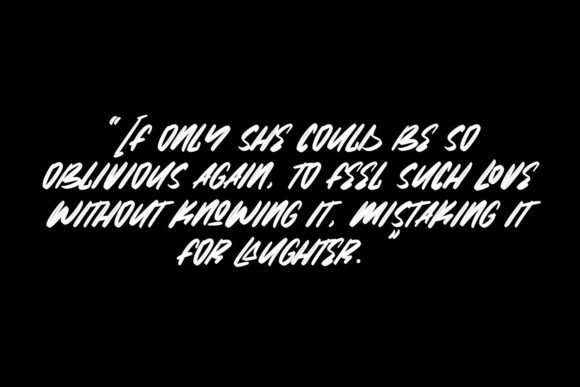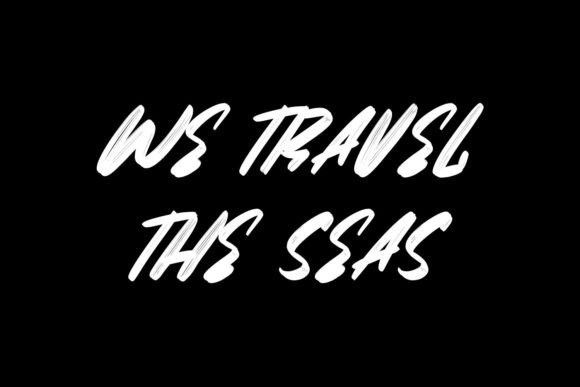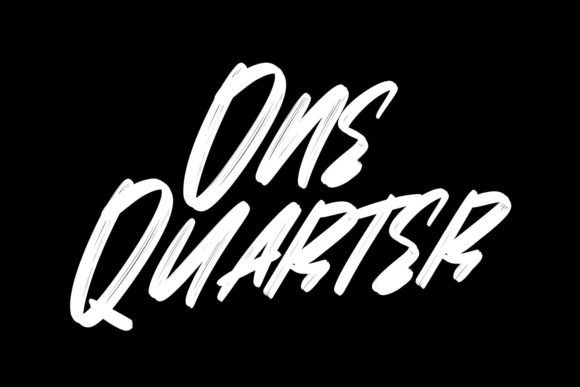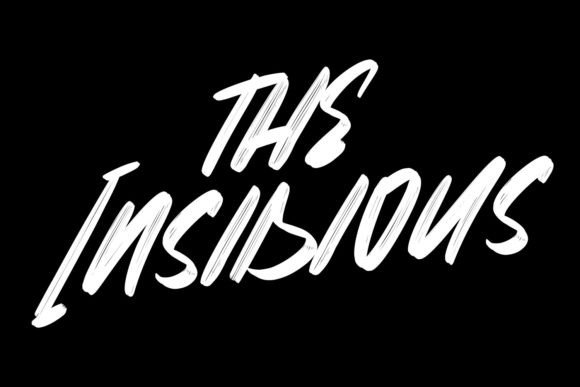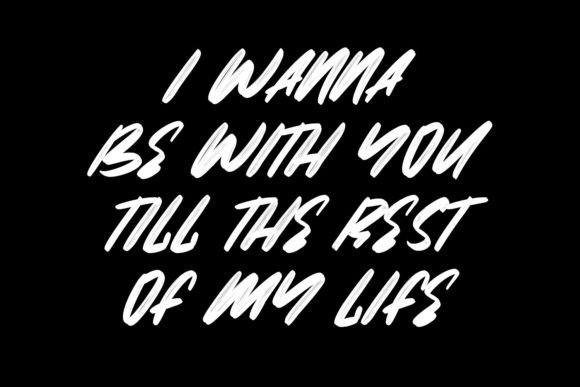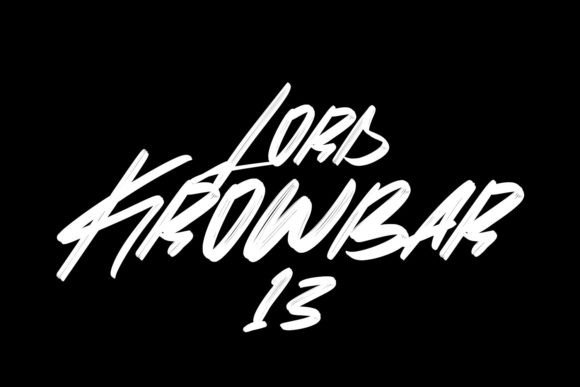
The Perfect Brush for Your Next Masterpiece
Have you ever sat down at your desk, pen in hand, and felt the urge to create something beautiful? Maybe it’s a logo for a new business, a wedding invitation for a close friend, or a simple greeting card for a loved one. Whatever it is, you know that the right font can make all the difference. That’s where the Frikfast Font comes in – a stunning slanted brush script display font that will add a touch of elegance to any composition.
This gorgeous font is perfect for designers who want to create visually appealing and classy designs. With its beautiful rhythm, Frikfast Font is ideal for branding projects, invitations, web graphics, and more. Whether you’re a seasoned pro or just starting out, this versatile font is sure to become a go-to favorite in your design arsenal.
Frikfast Font Key Features
- Character Set: The font features a comprehensive character set, including Latin, Cyrillic, and Greek alphabets, as well as a range of punctuation marks and symbols.
- Unique Characteristics: Frikfast Font boasts a distinctive, hand-drawn aesthetic with intricate details and flourishes, making it ideal for creative and artistic applications.
- Weight and Style Options: The font is available in a range of weights, from Light to Bold, and styles, including Regular, Italic, and Bold Italic, providing flexibility for a variety of design applications.
Frikfast Font Review
Overall, I found the Frikfast Font to be a visually appealing and unique addition to any digital project. ✨ Its eclectic mix of modern and vintage elements makes it perfect for designers looking to add some personality to their work. ✨ The font’s bold lines and distinctive letterforms are sure to grab attention and make your content stand out.
However, there are some limitations to consider. ⚠️ For one, the font’s irregularities can make it difficult to read in certain situations, particularly in large blocks of text. ⚠️ Additionally, the font’s bold weight can be overwhelming in some contexts, so it’s best to use it sparingly. ⚠️
Here are some specific things that work well in the Frikfast Font:
- Unique and eclectic design
- Perfect for adding personality to digital projects
- Bold lines and distinctive letterforms
On the other hand, here are some limitations to be aware of:
- Can be difficult to read in large blocks of text
- Bold weight can be overwhelming in some contexts
Overall, I would recommend the Frikfast Font for designers who want to add some personality and flair to their work. Just be sure to use it thoughtfully and in moderation.
Getting the Most Out of Frikfast Font
To get the most out of Frikfast Font, use it to create eye-catching headlines and titles. Experiment with different font sizes, colors, and styles to add visual interest to your designs.
Frikfast Font is ideal for use in graphic design, digital marketing, and creative projects. Use it to create engaging social media graphics, attention-grabbing presentations, and unique marketing materials.